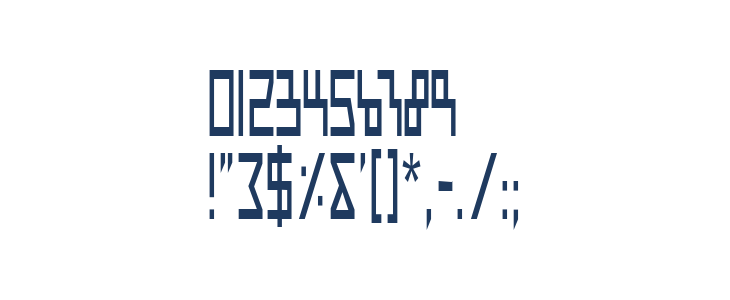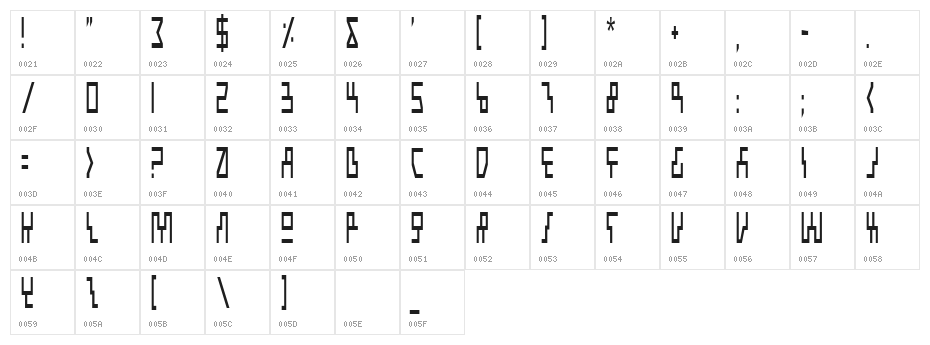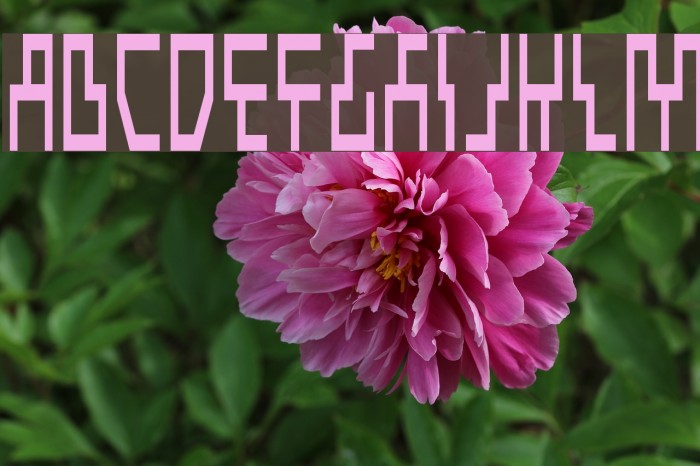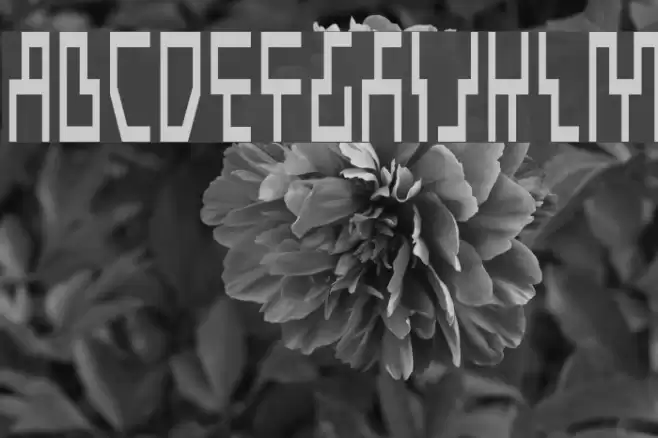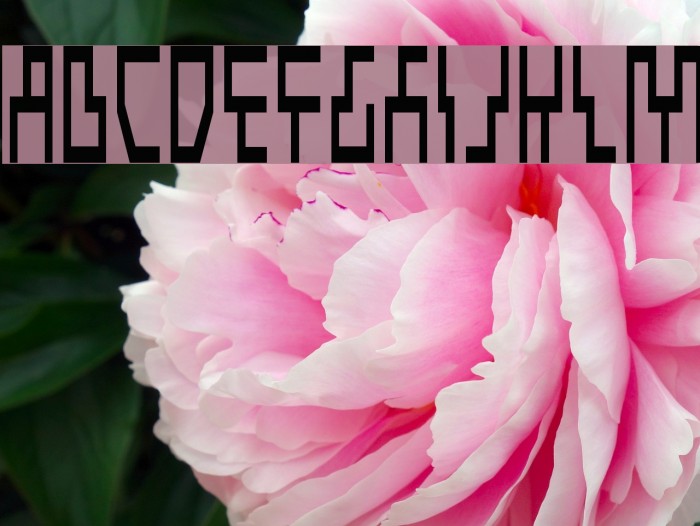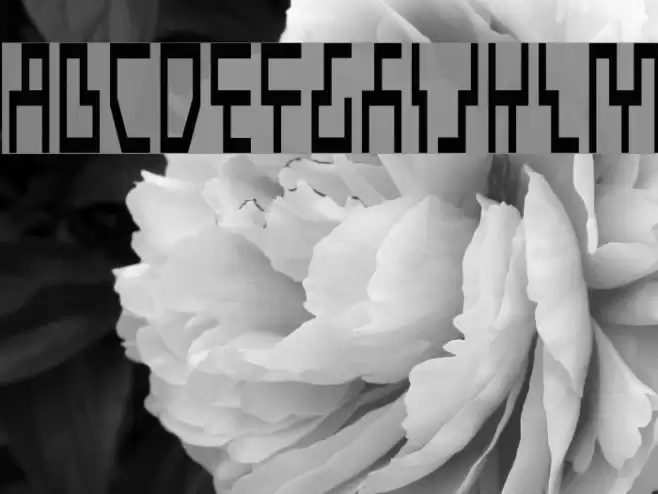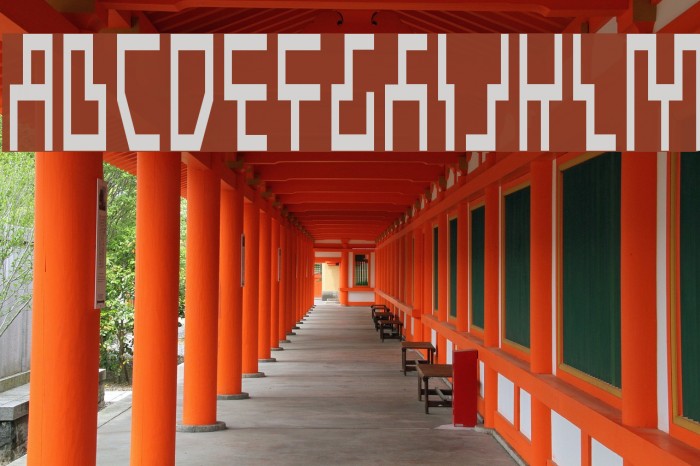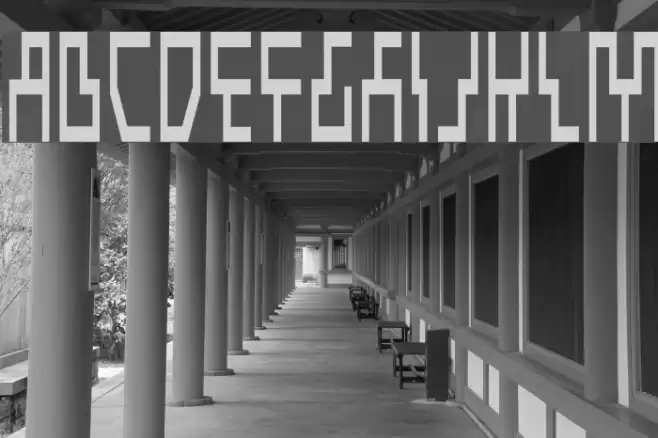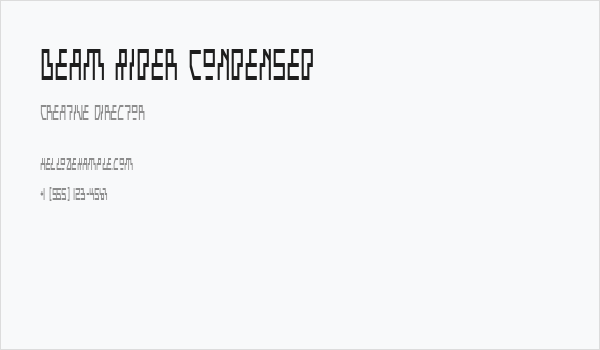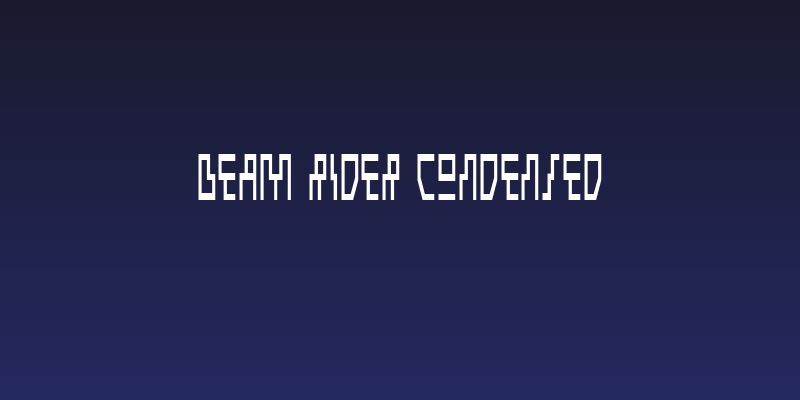
Beam Rider Condensed Font
Beam Rider Condensed Description
This font features a futuristic and geometric design with sharp angles and a condensed structure. The characters are formed with straight lines and right angles, creating a digital and mechanical appearance. The uppercase and lowercase letters share a similar height, enhancing the uniformity and compactness of the font. Numbers and special characters maintain the same angular style, ensuring consistency across all glyphs. The overall appearance is bold and striking, making it suitable for projects that require a modern and edgy aesthetic.
| Proposed Projects | Ideal for sci-fi themed designs, video game graphics, tech branding, and modern posters. |